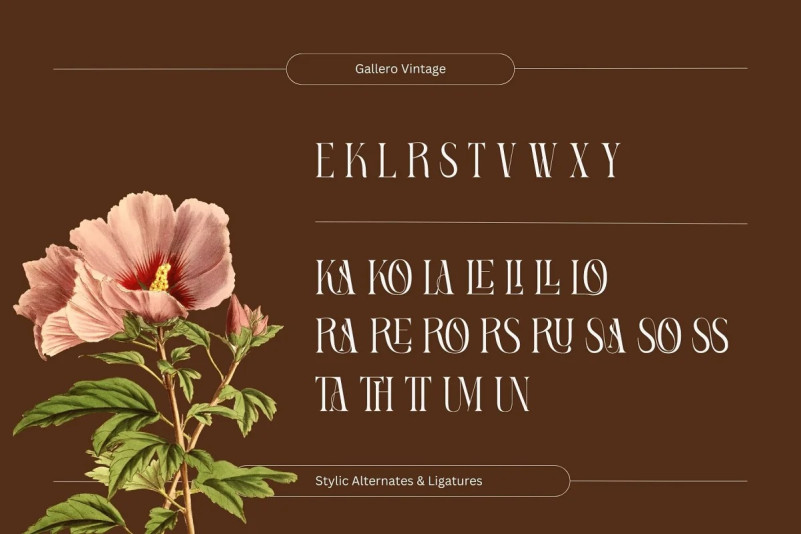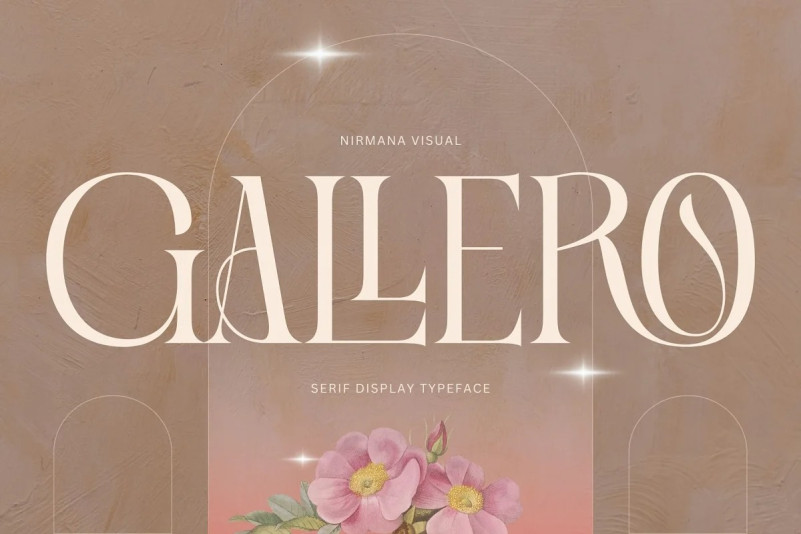
Gallero Font
Gallero Vintage Font, contemporary of serif font, inspired by Art Nouveau era.
Fashion Wacks offers beautiful typographic harmony for a diversity of design projects, including logos & branding, social media posts, advertisements & product designs.